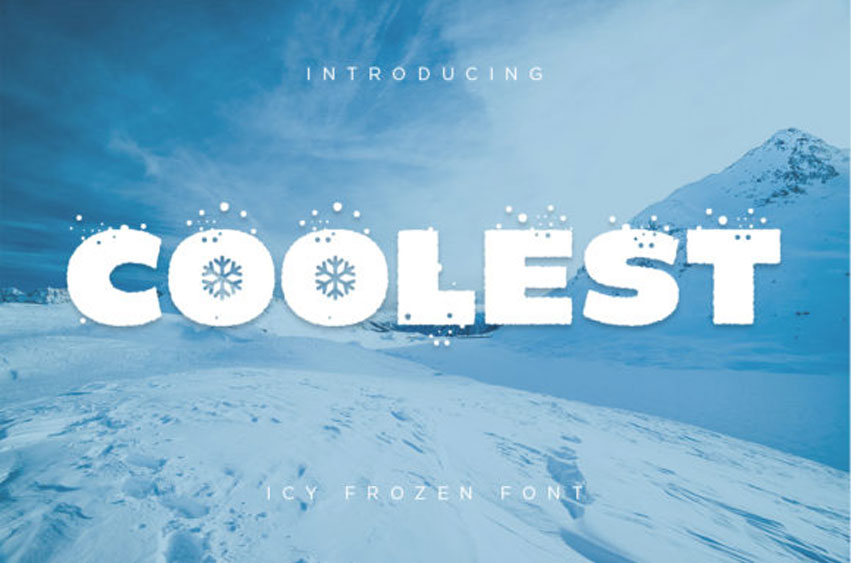
Coolest Font
Coolest Font is an icy and winter-themed display font that will look outstanding in a wide range of designs!
Get inspired by its wonderful winter details and add a snowy feel to any design project!